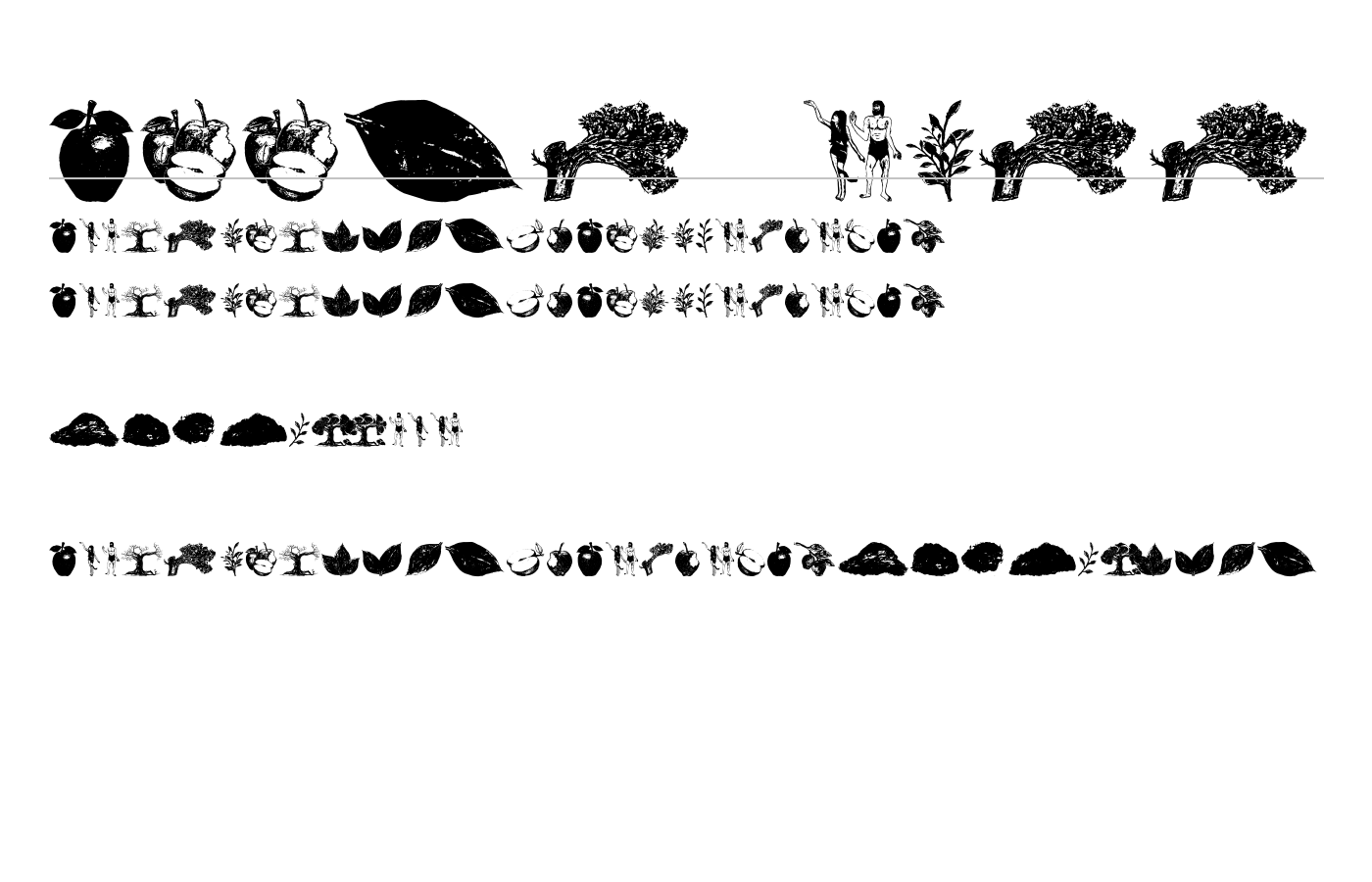
Apple Tree Font is a highly decorative, pictorial typeface composed entirely of detailed illustrations of apples, leaves, trees, and small human figures, rather than traditional letterforms. Its unique, intricate style conveys a rustic, natural, and whimsical personality that works best for creative branding, packaging, or decorative headlines where a playful, nature-inspired vibe is desired. This font is ideal for projects seeking an unconventional and artistic look rather than straightforward text readability.
Apple Tree Font
About Apple Tree Font
| Font family | Apple Tree Font |